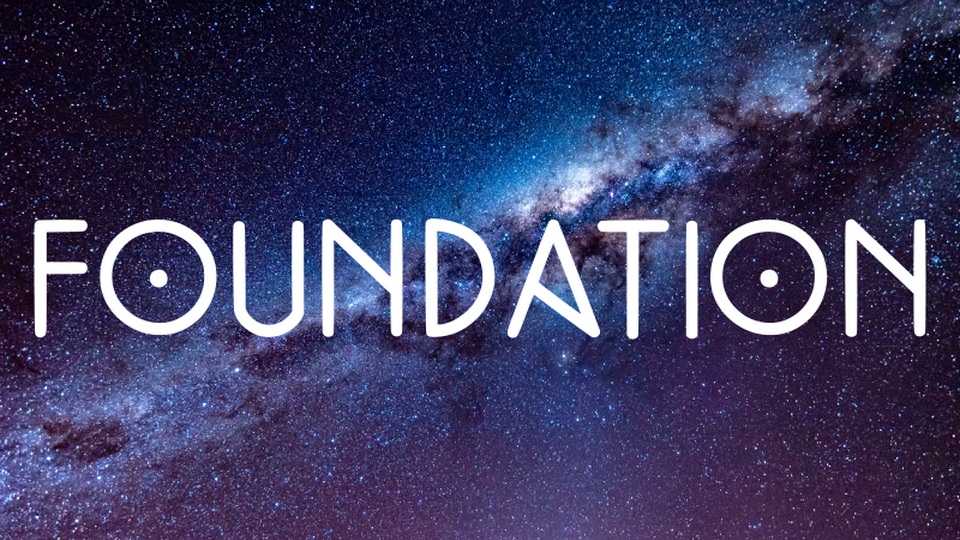
Download Foundation Titles Hand font, a futuristic display typeface based on the the Apple TV+ series made from the Isaac Asimov books. Foundation Titles Hand uses a number of fonts with related design for the logo, on-screen text, in-scene signage and the title credits.